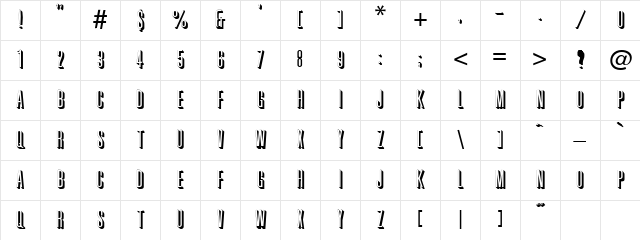
Complete Narrow Shadow 2 Regular glyph index. Displaying only characters natively supported by Narrow Shadow 2 Regular font.
Narrow Shadow 2 is built around its visual character rather than neutral utility - its distinctive forms are designed to make an impression at display sizes.
Font Pairing: Pair with a clean neutral sans-serif for body copy to let Narrow Shadow 2's character lead without overwhelming the composition.
Pro Tip: Use Narrow Shadow 2 exclusively at display sizes - it was designed to be seen, not read at length. Let a neutral companion handle body copy.